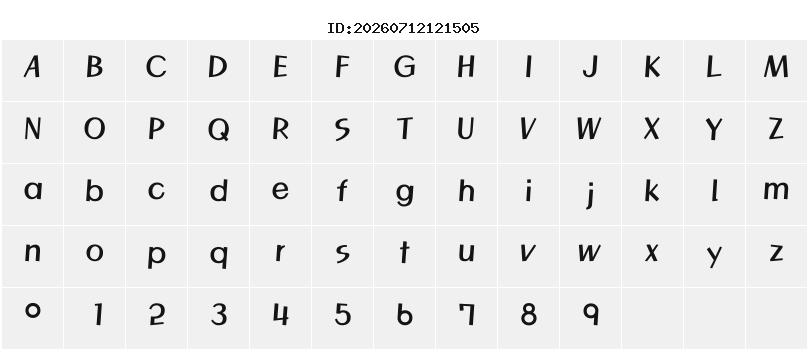
Magic R Preview
• Font Name: Magic R
• Font ID: Magic R
• Full Font Name: Magic R
About Magic R.ttf
Magic R.ttf is a modern, elegant sans-serif font designed for ultimate readability and visual harmony. Perfect for branding, headlines, web design, and print materials.